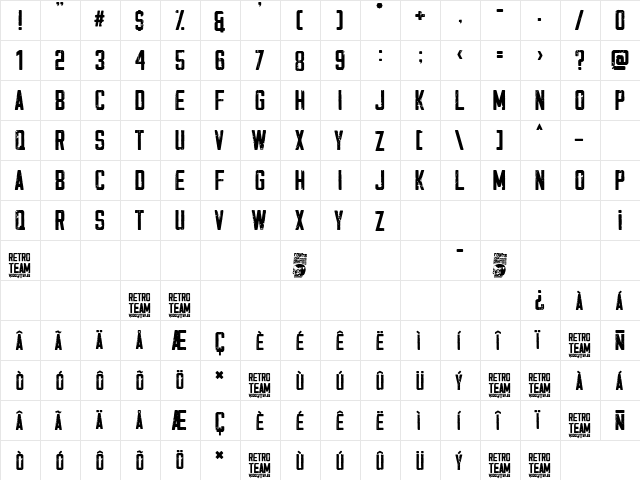
Retro Team Regular
Design Context for Retro Team Typeface
Retro Team has the warm character of retro typography — evoking diners, record sleeves, and the golden age of print advertising.
Font Pairing: Combine Retro Team with a simple slab or neutral sans — period-accurate companions reinforce the vintage feel without competing for attention.
Pro Tip: Use Retro Team for headlines and pull quotes rather than body copy — its personality is best appreciated in short, focused bursts.